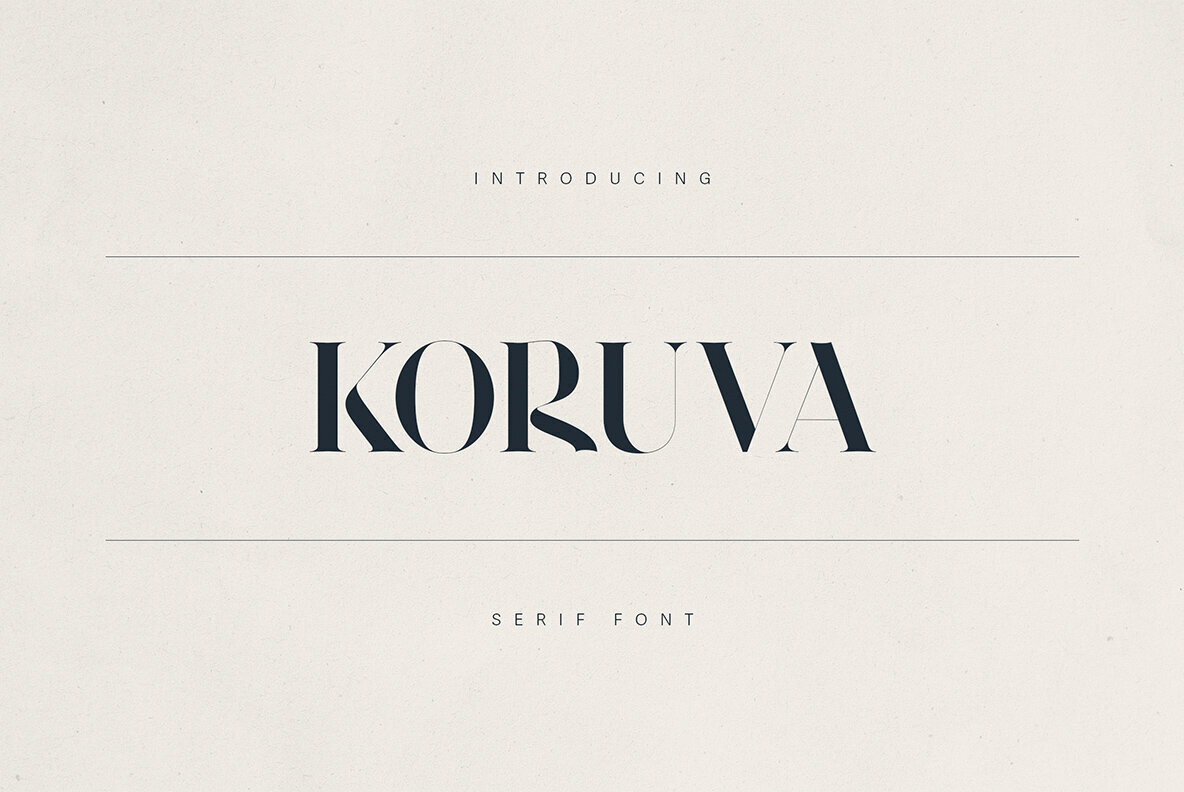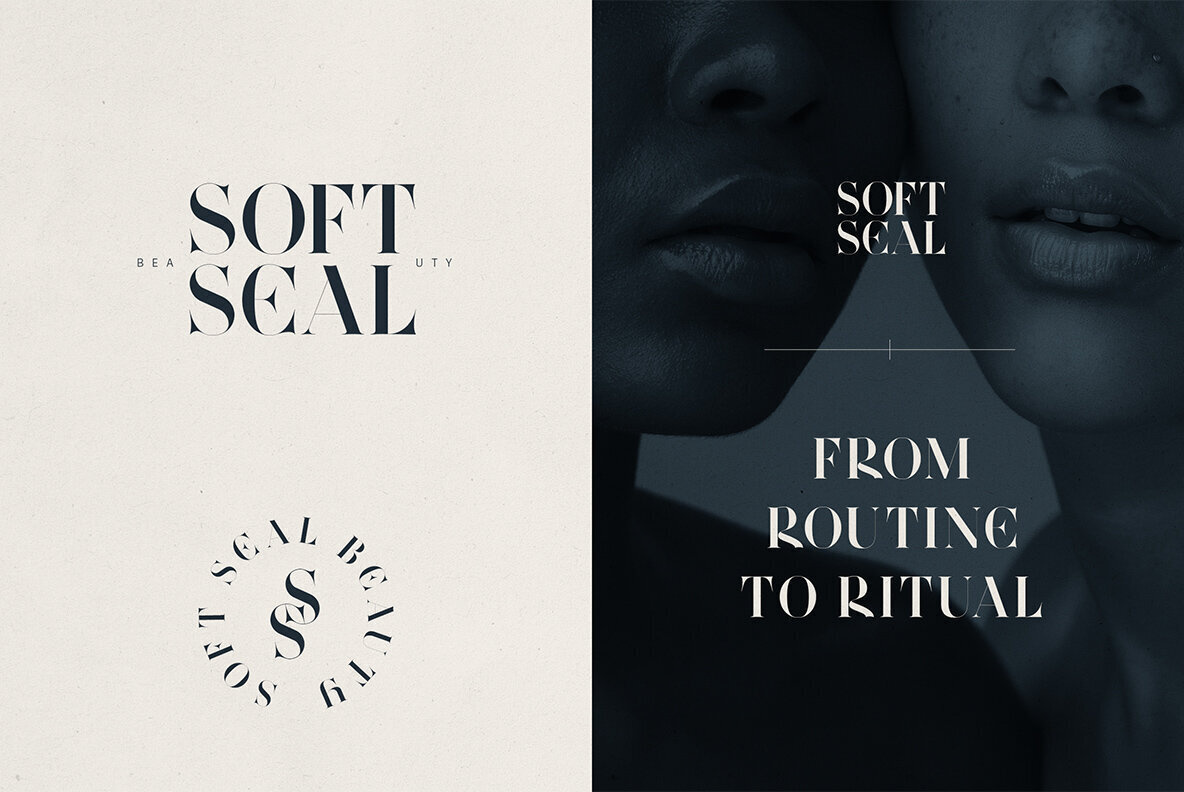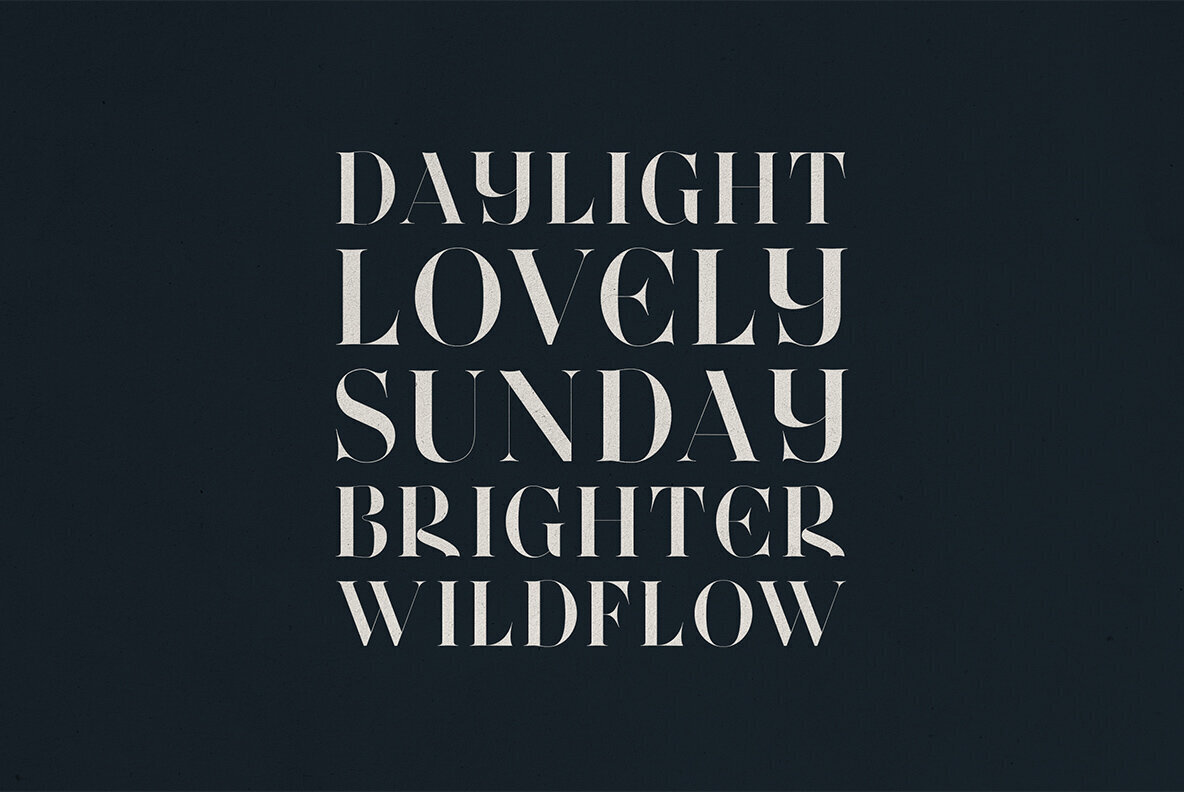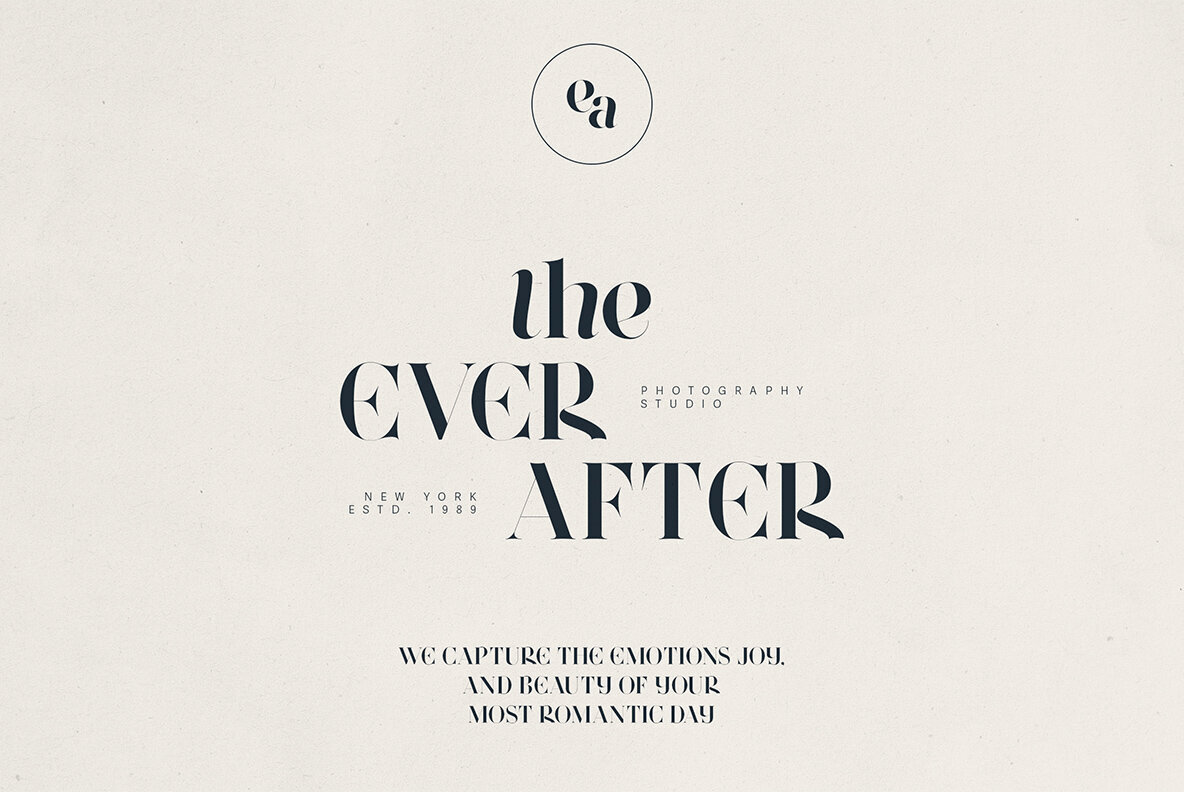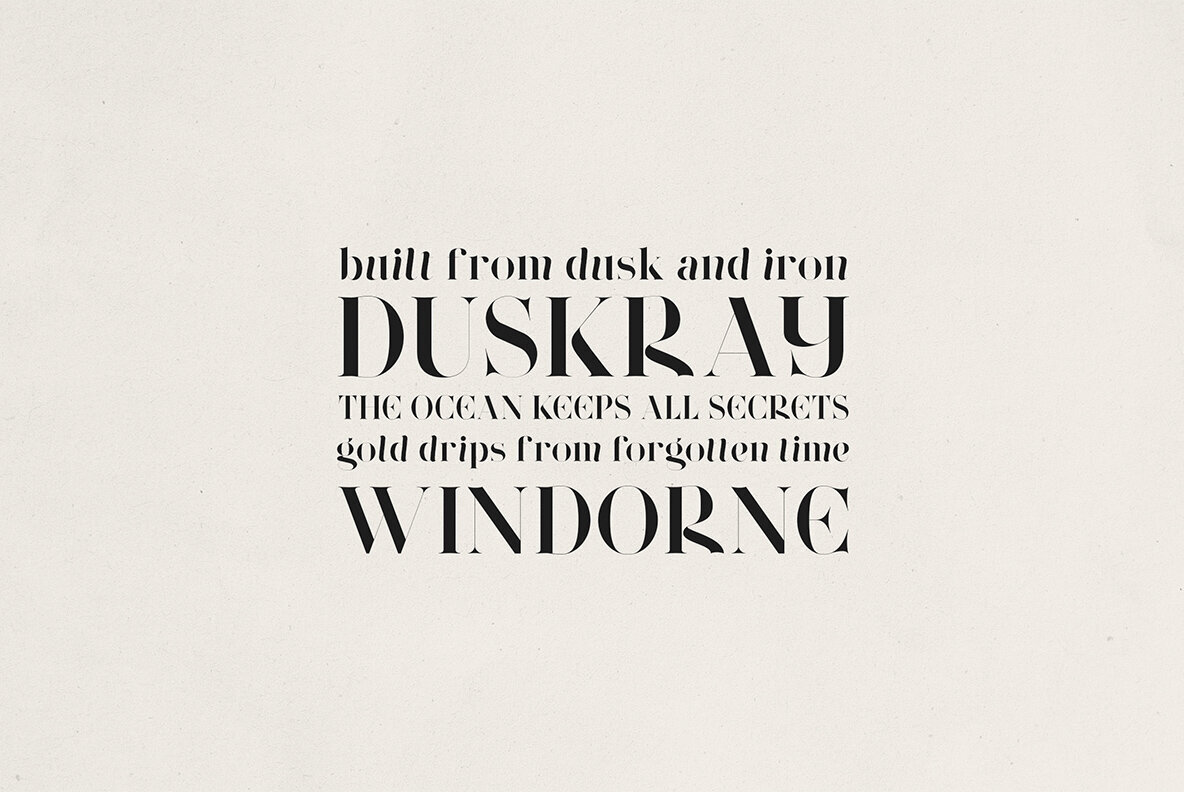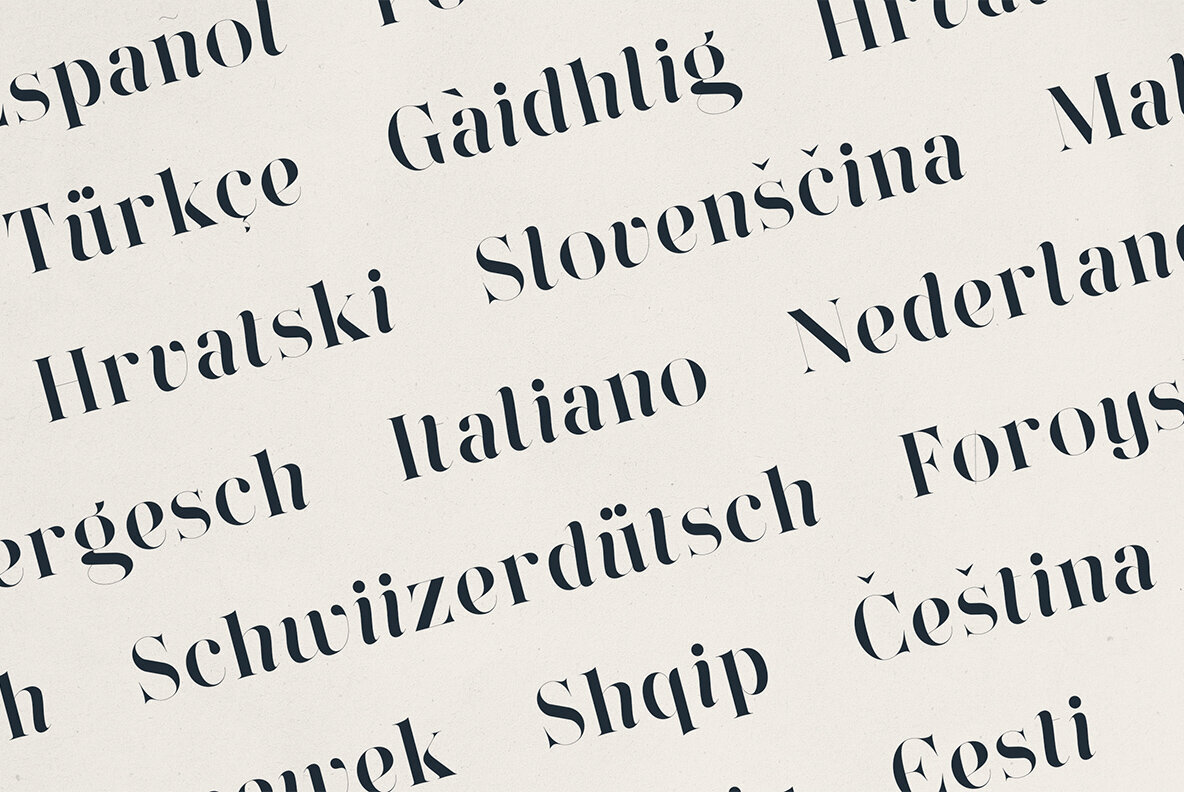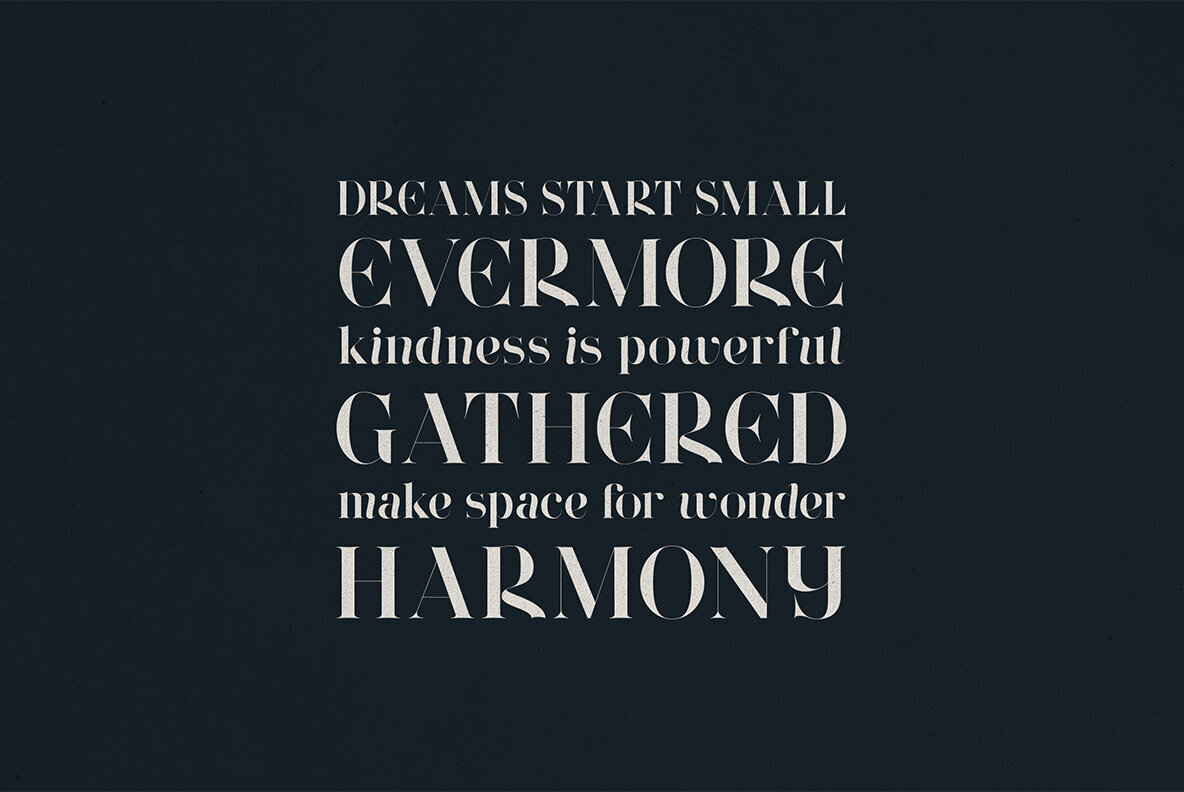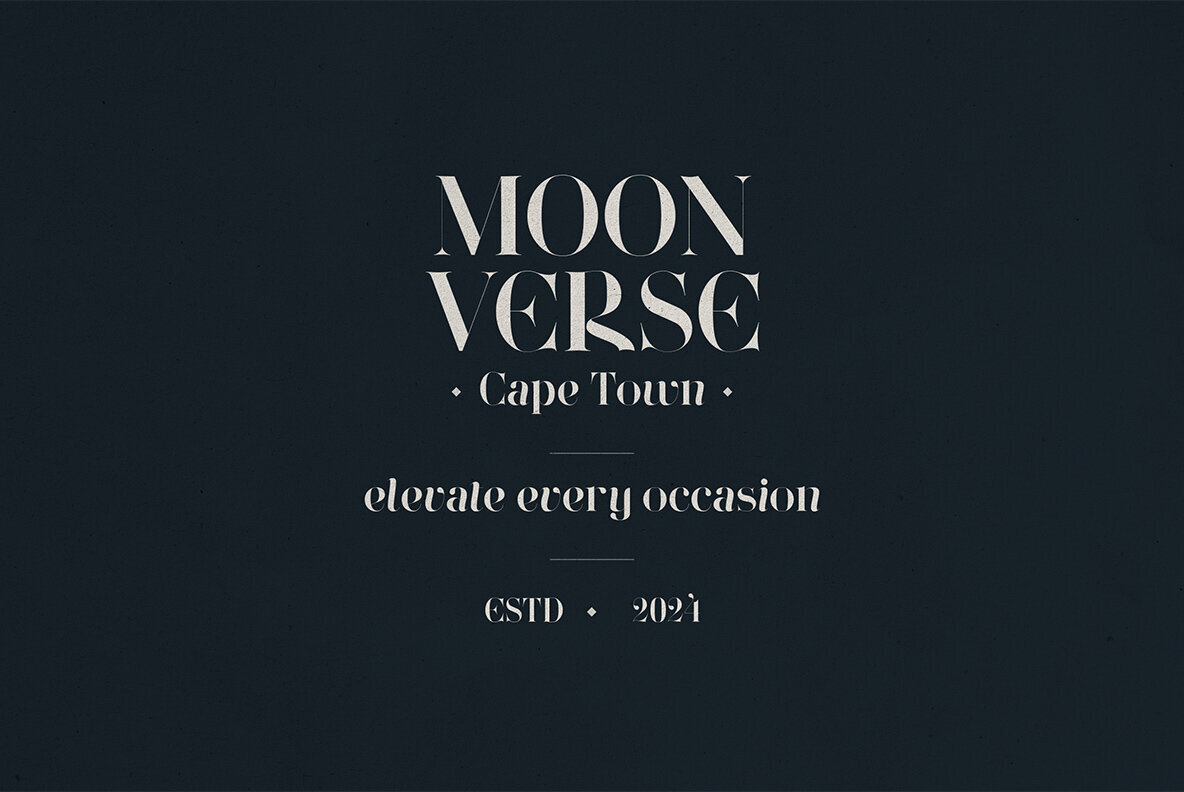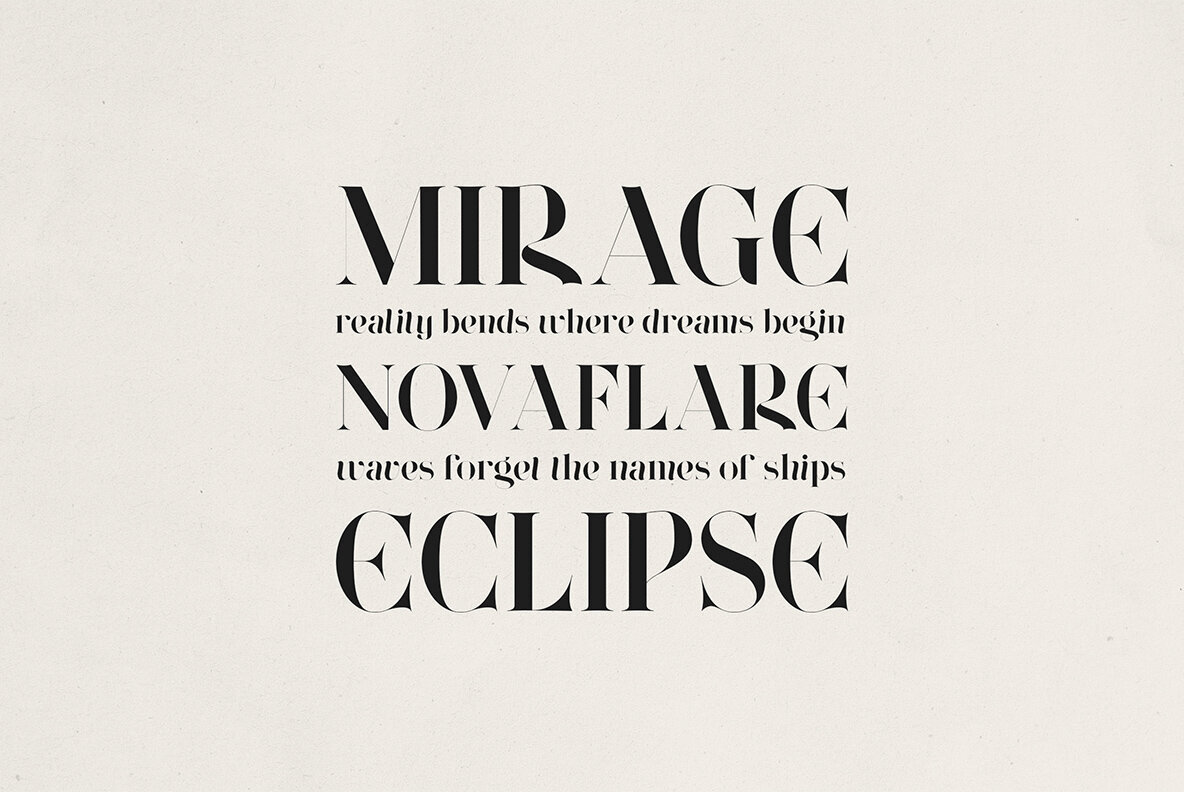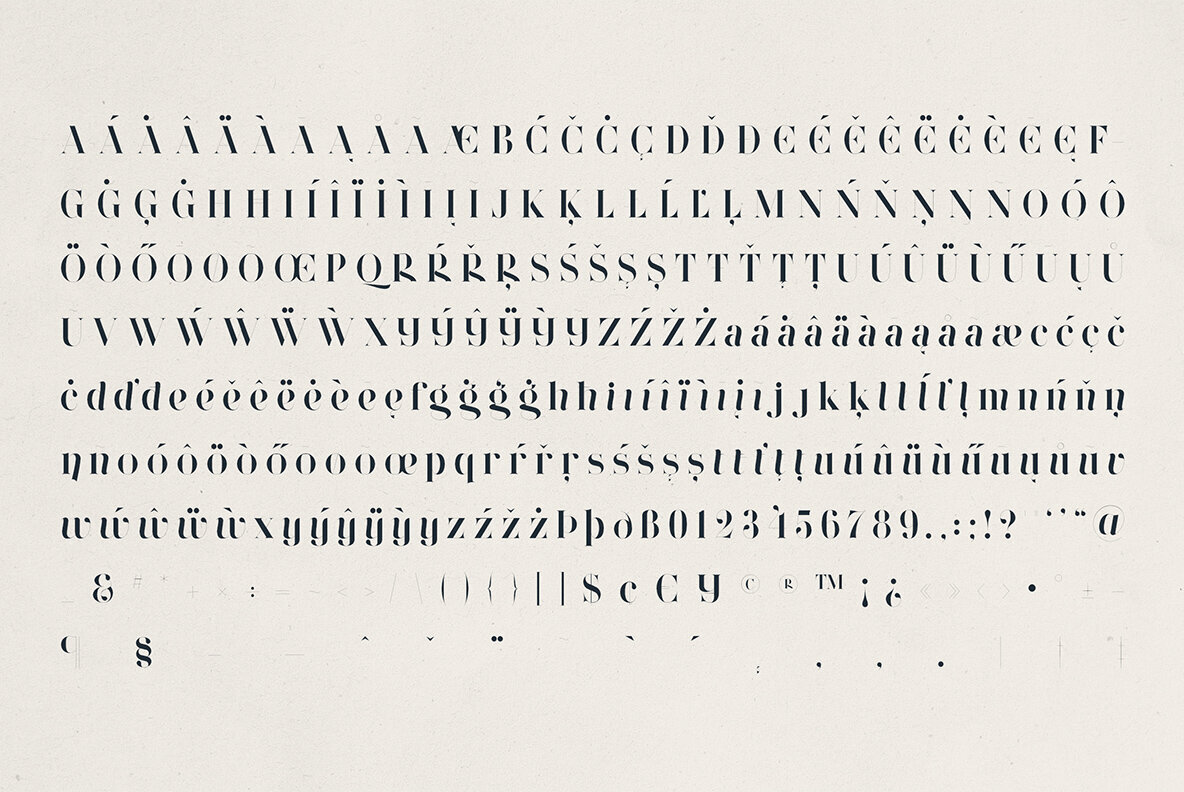
Koruva Font
Koruva Regular
Introducing Koruva, a high-contrast serif typeface that elegantly marries boldness with grace. Its sleek curves and dramatic letterforms make it an ideal choice for any project aiming to make a lasting impression. With an editorial flair, Koruva perfectly complements branding for luxury, beauty, fashion, and lifestyle sectors. This typeface is your go-to for creating striking product packaging, captivating magazine spreads, and memorable logos. Koruva offers robust language support, covering over 80 languages, including Afrikaans, Czech, Finnish, German, Italian, and more, ensuring your message is universally adaptable and culturally relevant across diverse markets.Koruva: A Modern Serif with Sculptural Elegance
Extensive Language Support